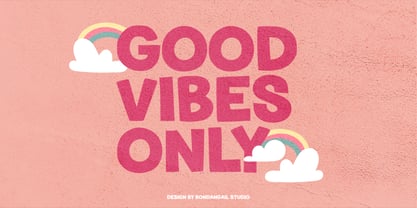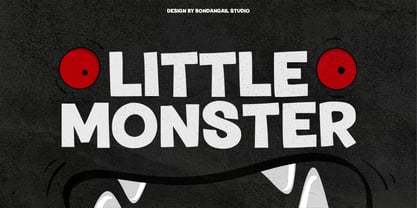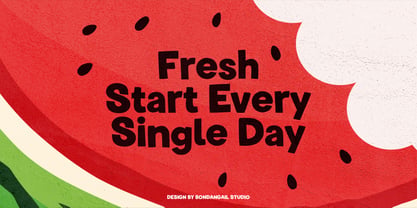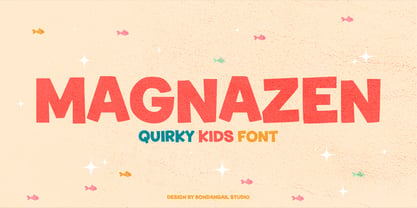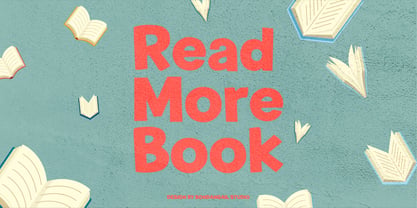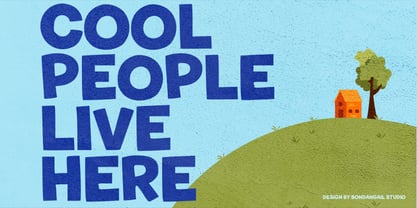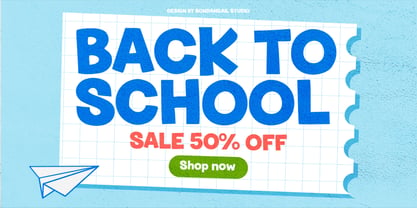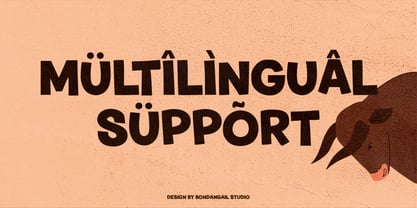
Magnazen
by BondanGail
The Magnazen Font Family was designed by Wahyu Eka Prasetya, Bondan Gail Saputro and published by BondanGail. Magnazen contains 1 styles. More about this family
Magnazen is a bold and playful display font characterized by chunky, irregular shapes and a lively handcrafted feel. This font is specifically designed for standout kids' branding, eye-catching packaging, and expressive headlines. Ideal for children's designs, cheerful branding, posters, packaging, and social media, Magnazen infuses a joyful and energetic tone that instantly captures attention and adds character to any project. Magnazen includes: • 1 style: Regular • Uppercase, Lowercase, Numerals, Symbols, and Punctuation • Multilingual support • Compatible with PC & Mac • Accessible in Adobe Illustrator, Adobe Photoshop, Adobe InDesign, and even works on Microsoft Word. Note: All photographs, pictures, and vectors used in the preview are not included and are intended for illustration purposes only.